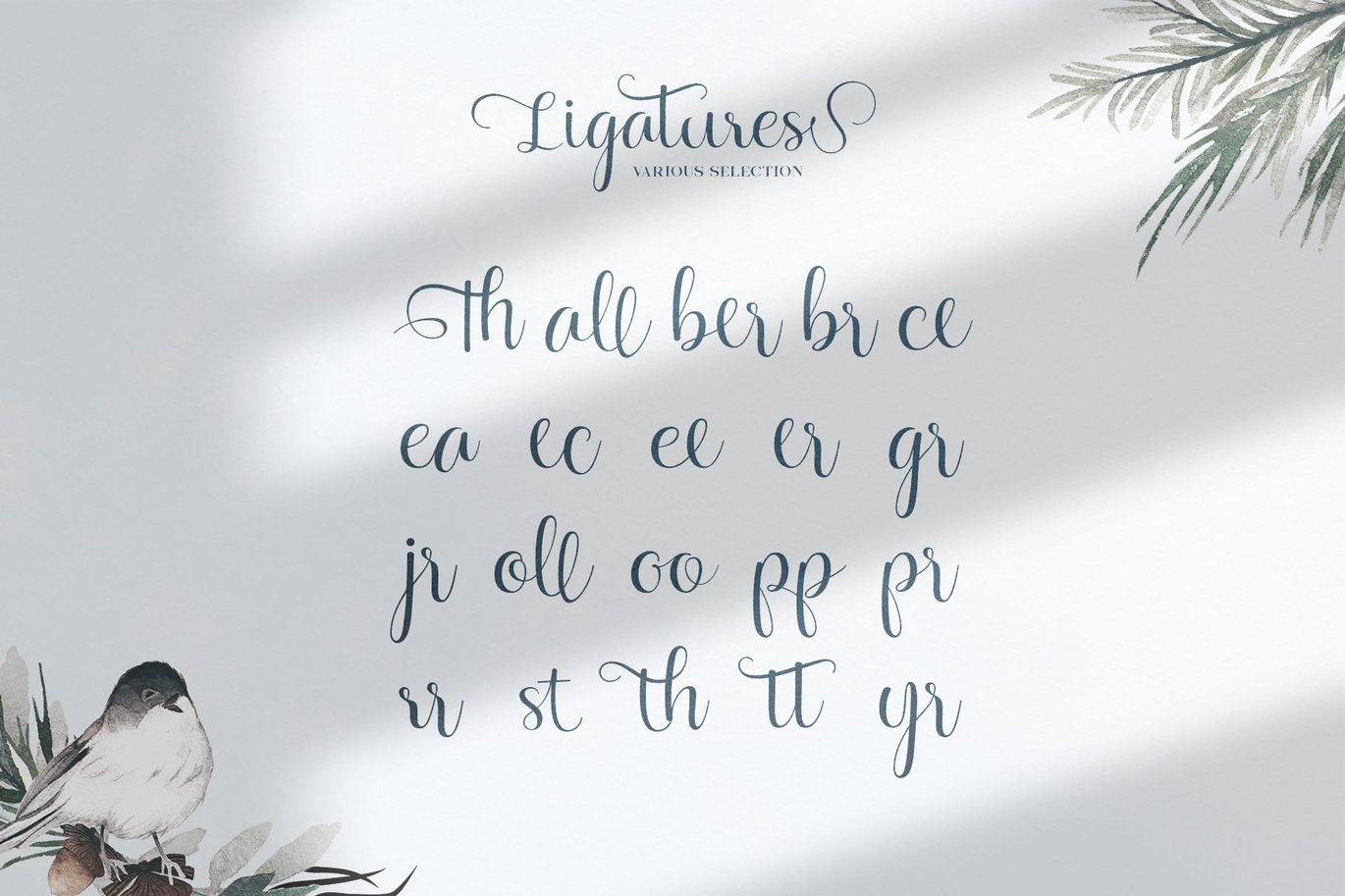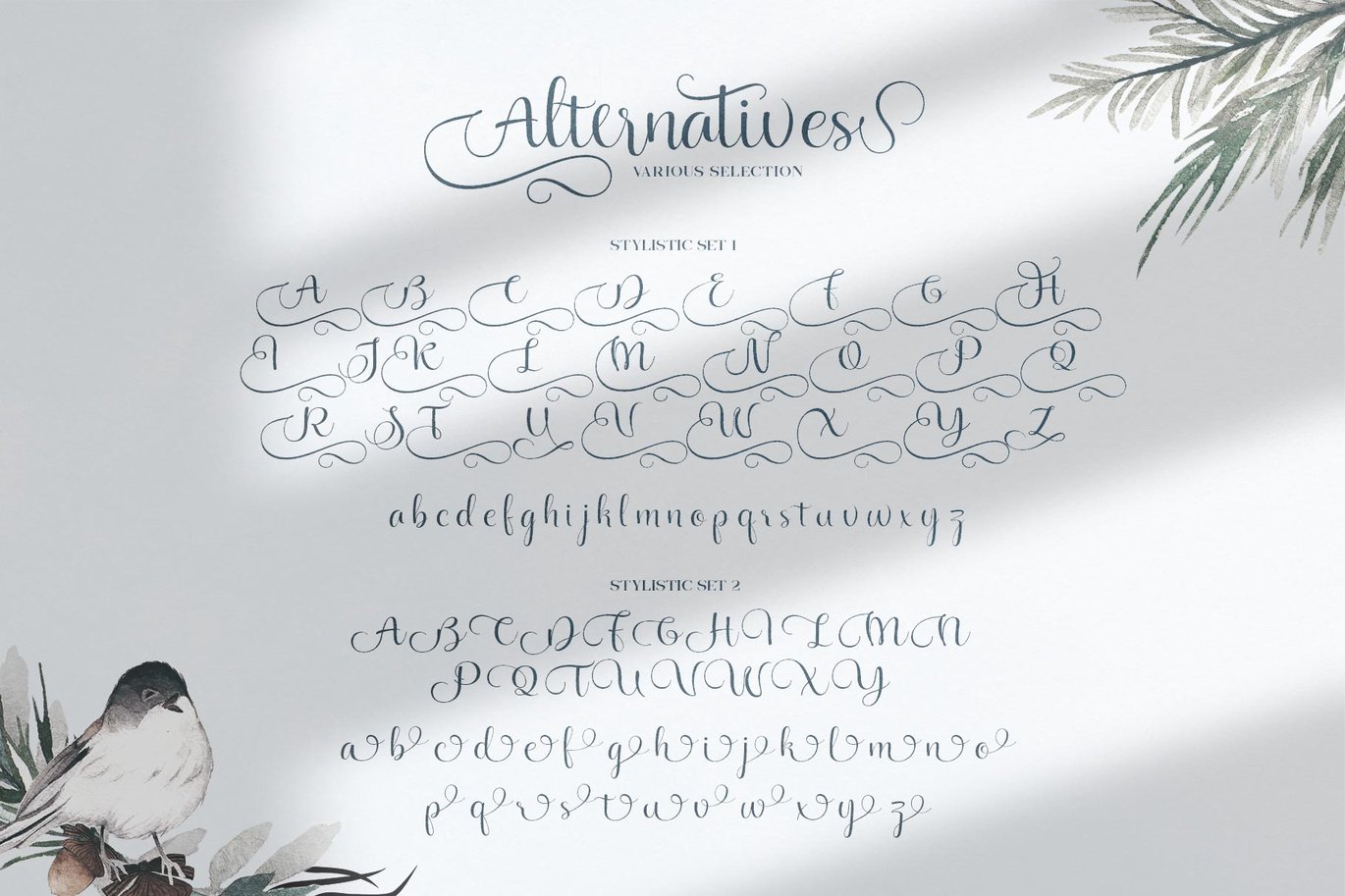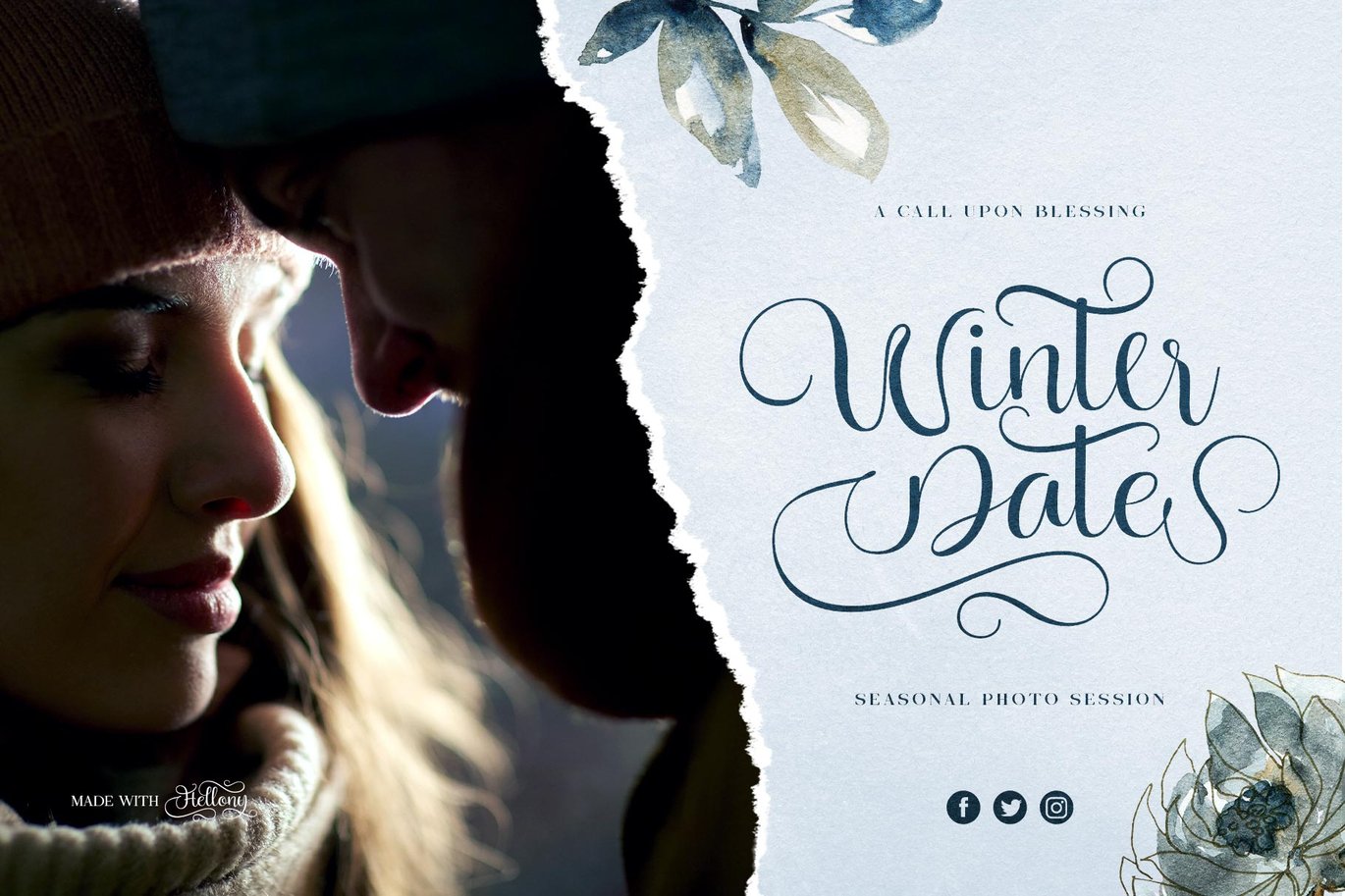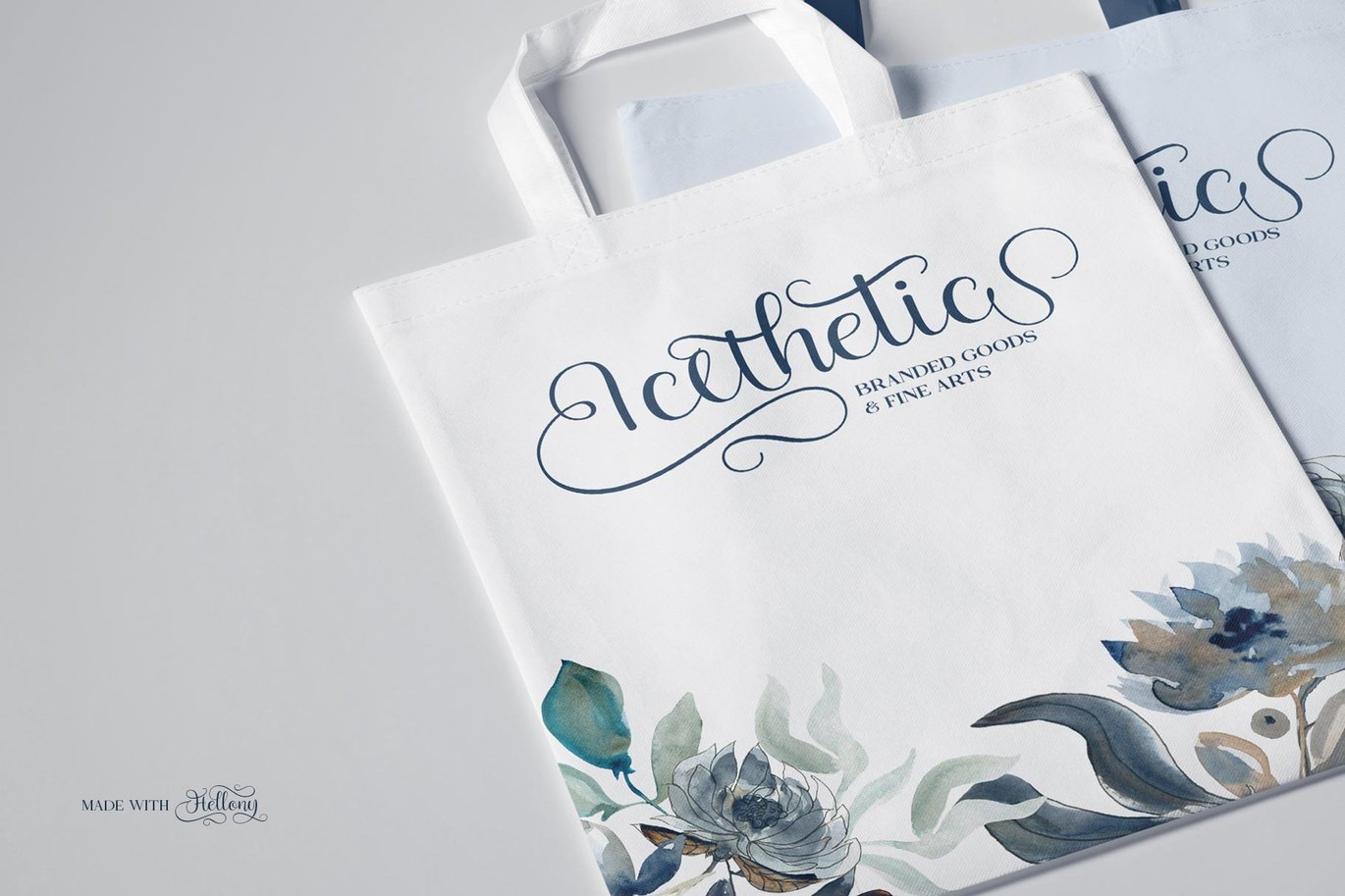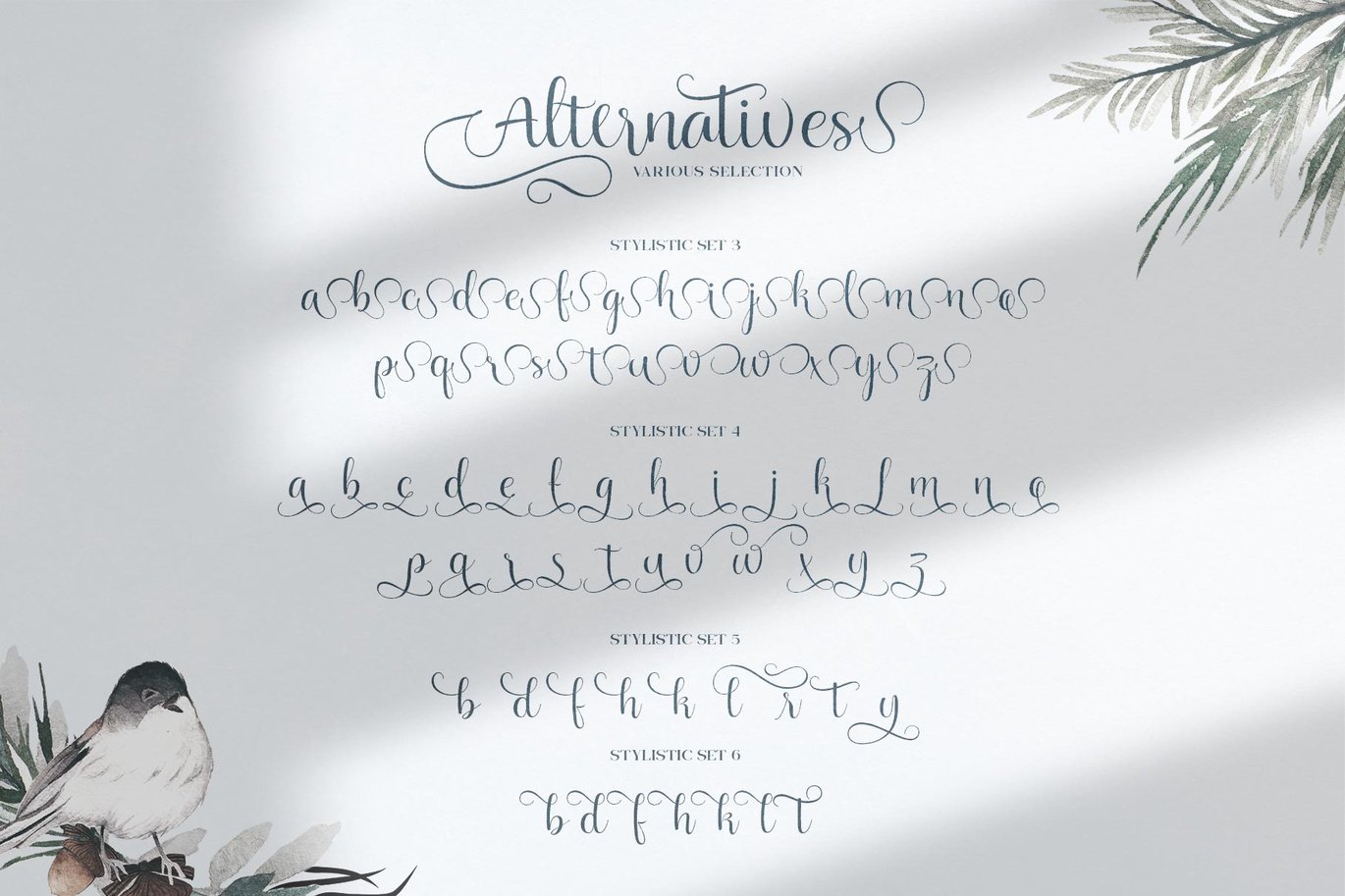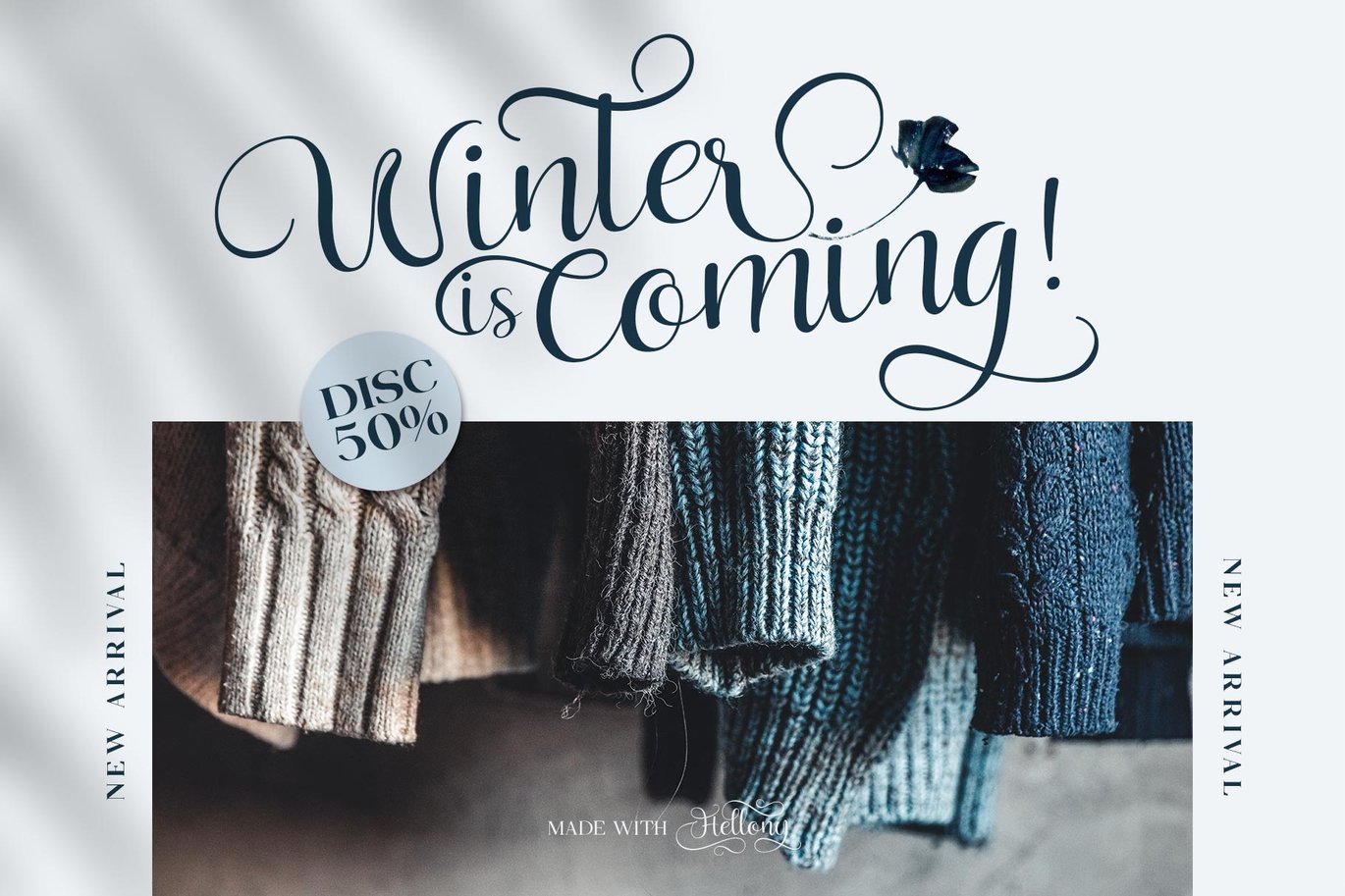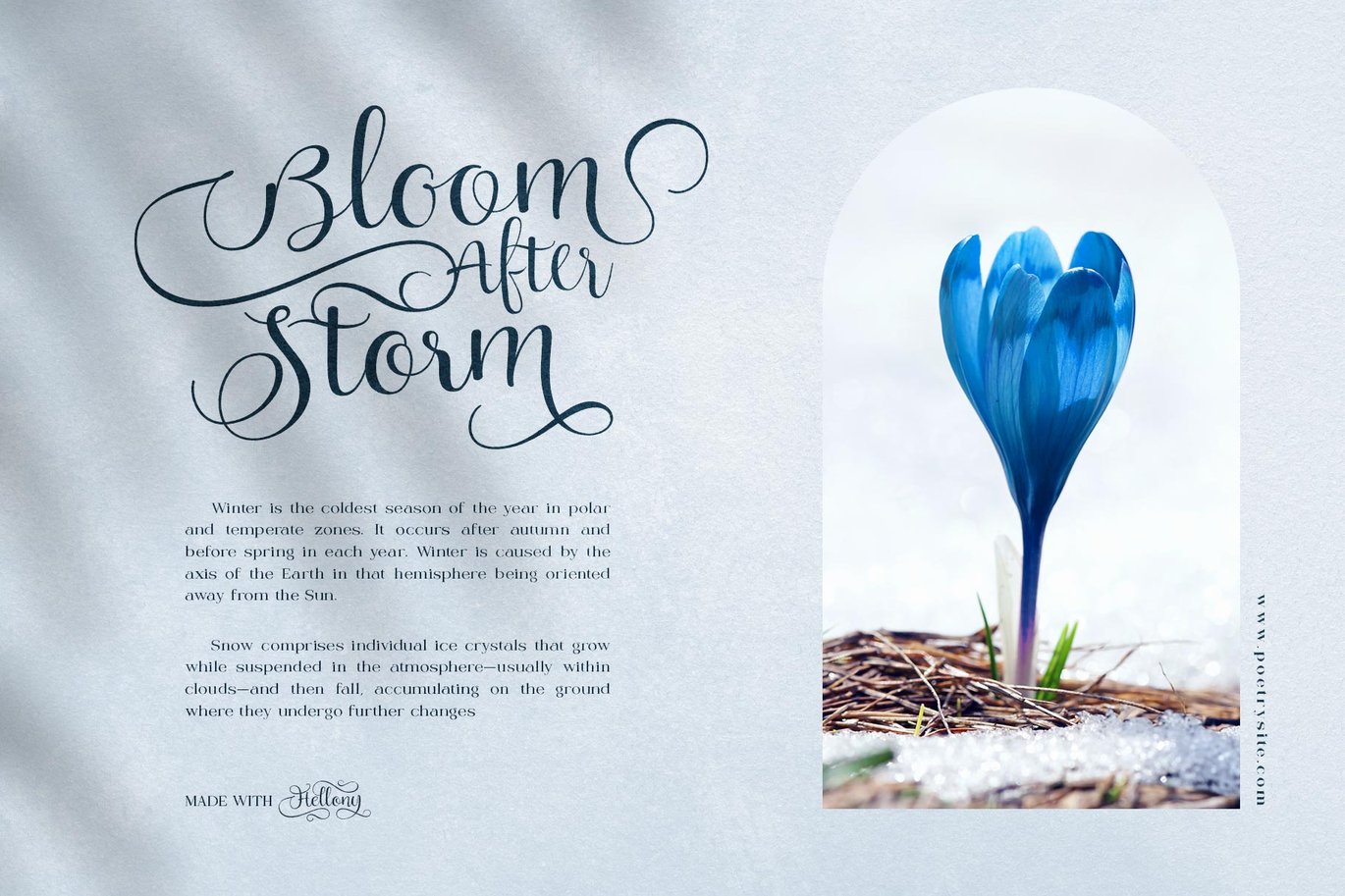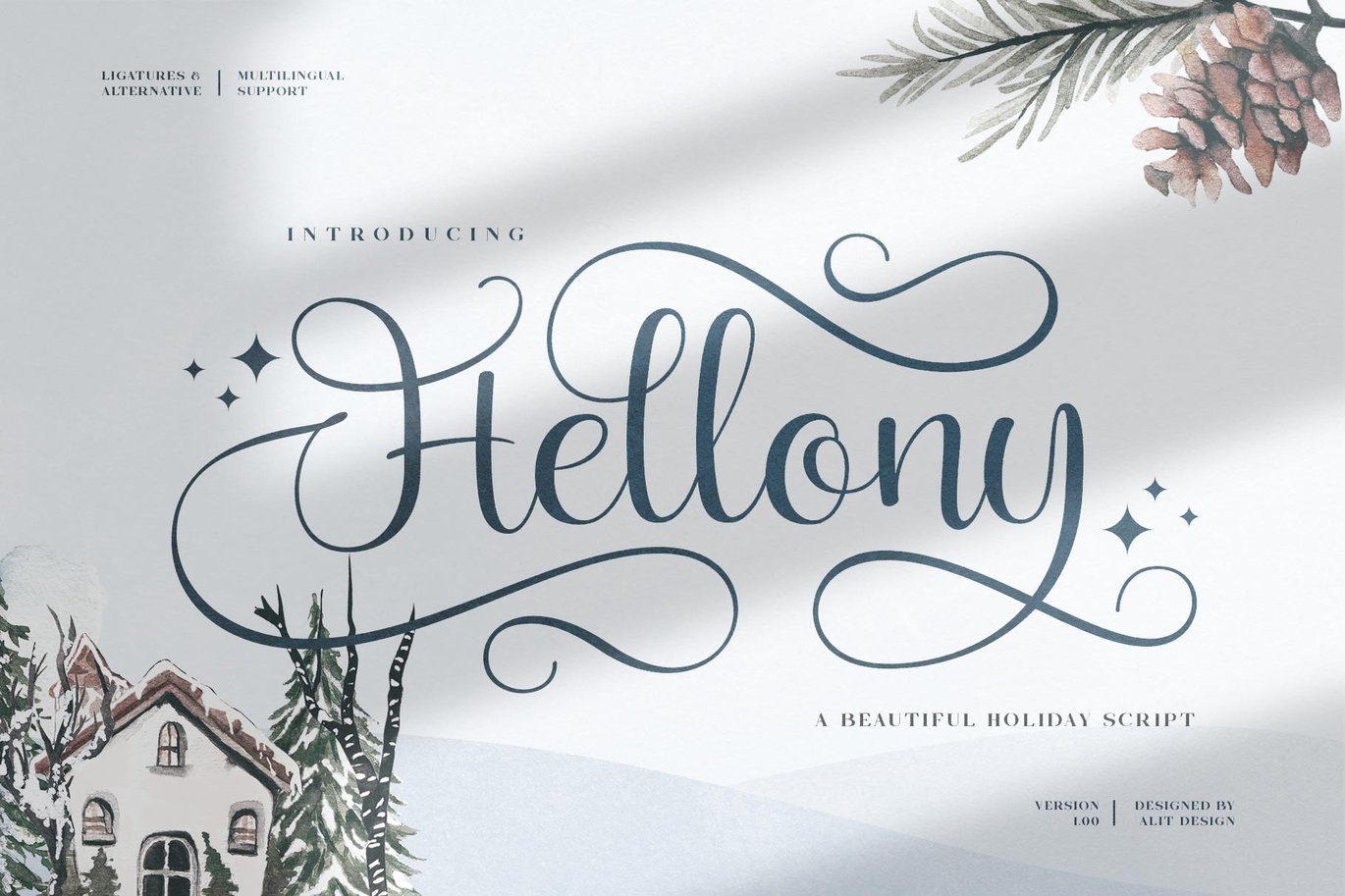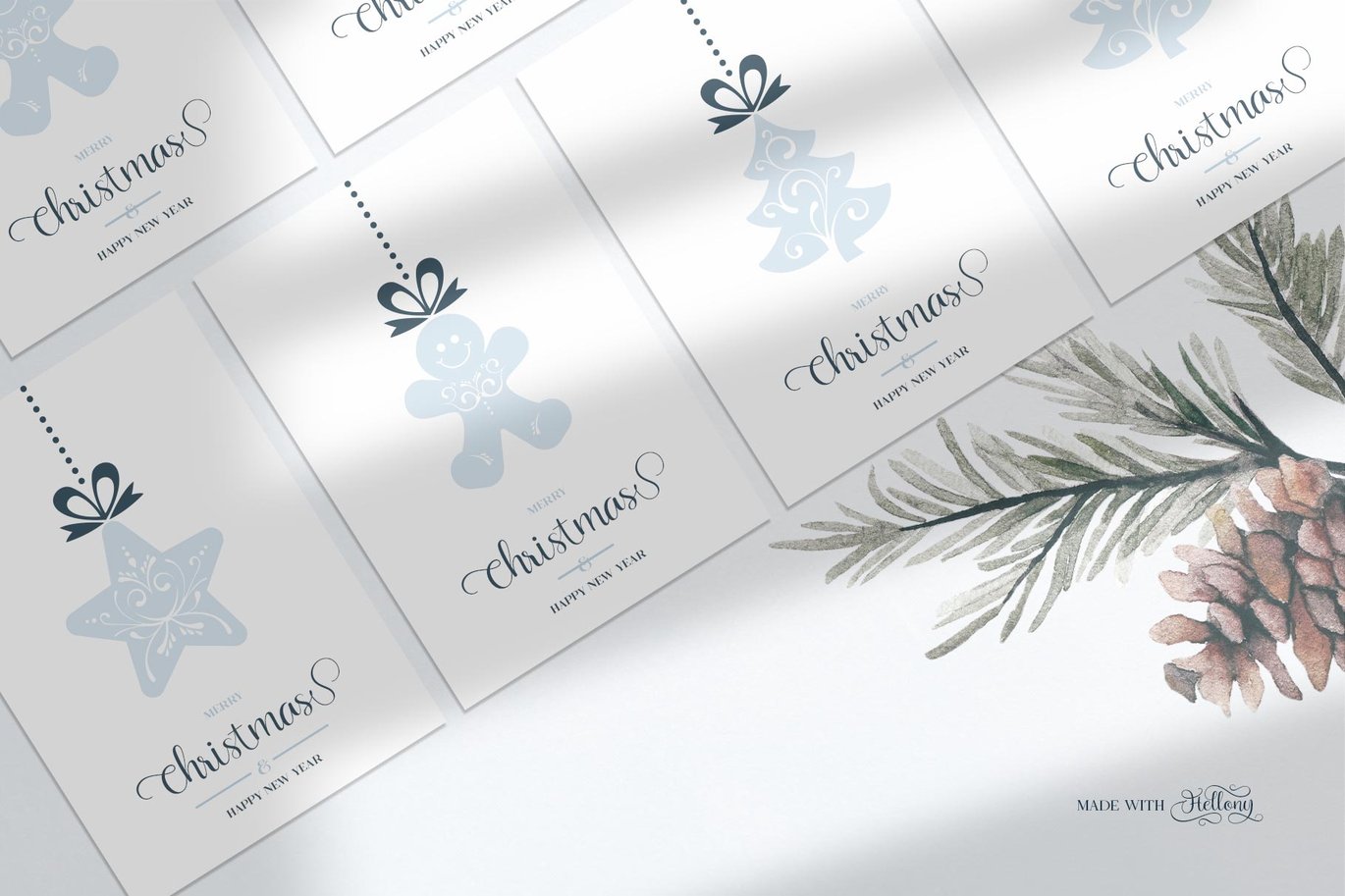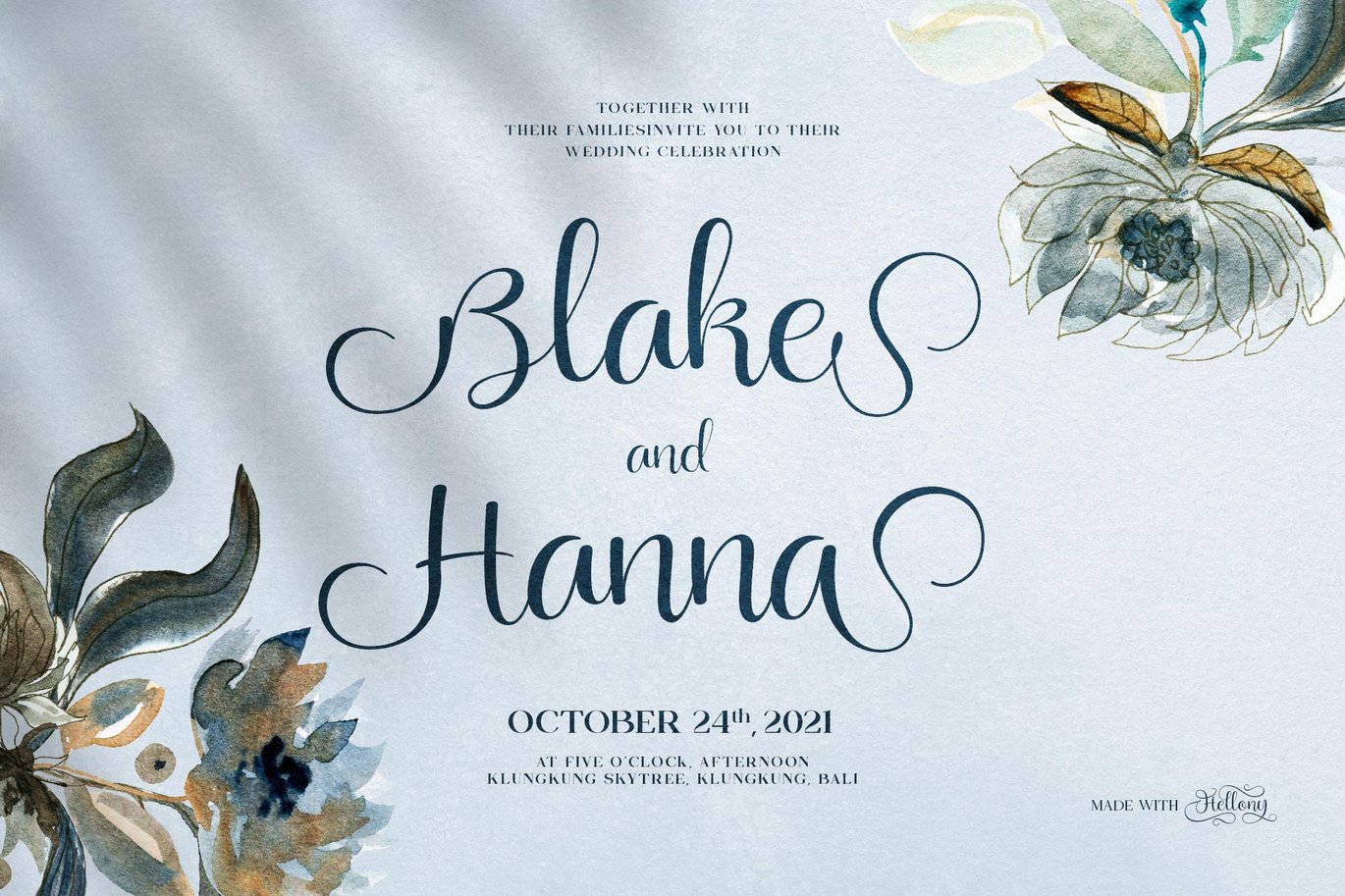
Hellony Typeface
❄️IntroducingHellony Typeface❄️
☃️ Hellony Typeface is a font that uses a unique handwriting script style to create designs that are both relaxed and eye-catching. This font is very easy to apply to various types of designs such as designs for Christmas, greeting card designs, designs for making elegant, relaxed text headers.
Can be used for the design of poster, Big sale sign, greeting card , packaging designs, New Year design and so on with the winter season concept.
- A-Z Character Set
- Numerals & Punctuations (OpenType Standard)
- Stylistic Alternates